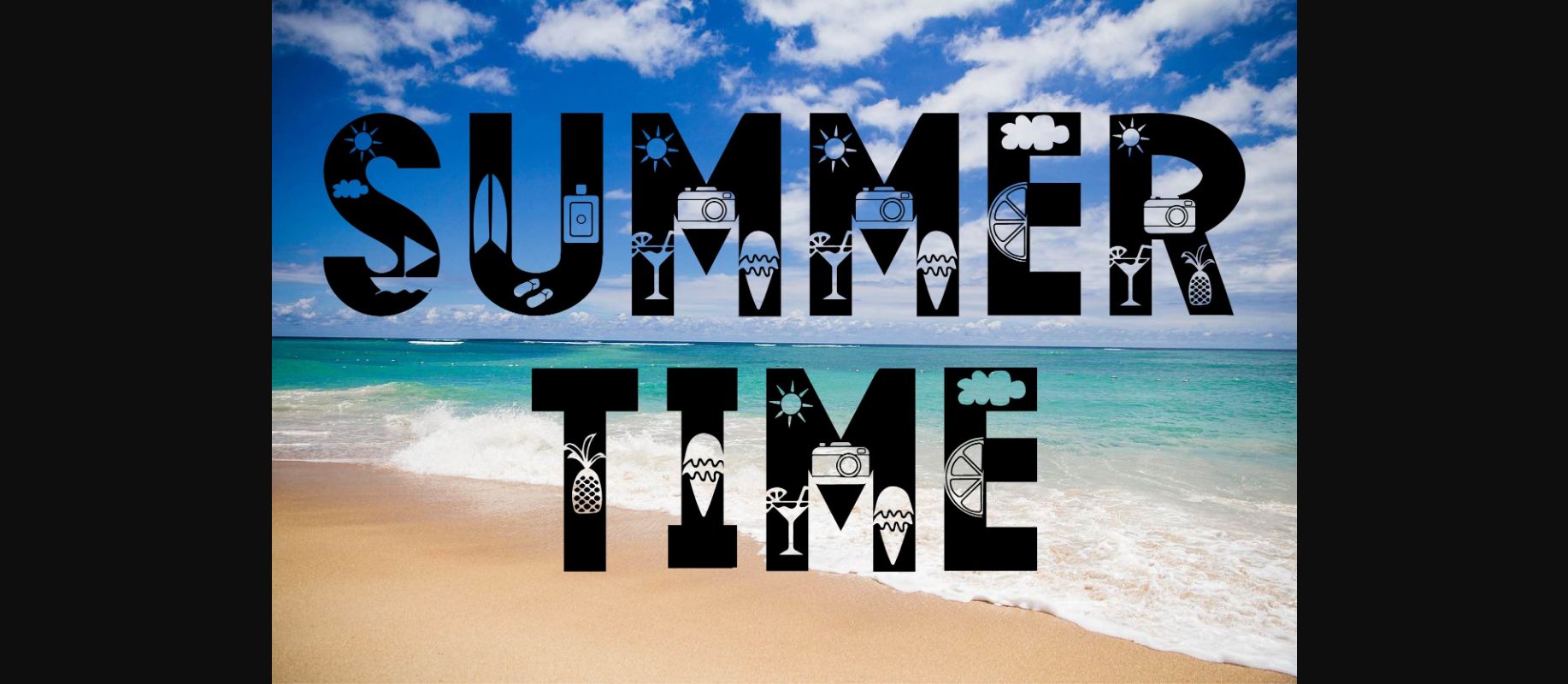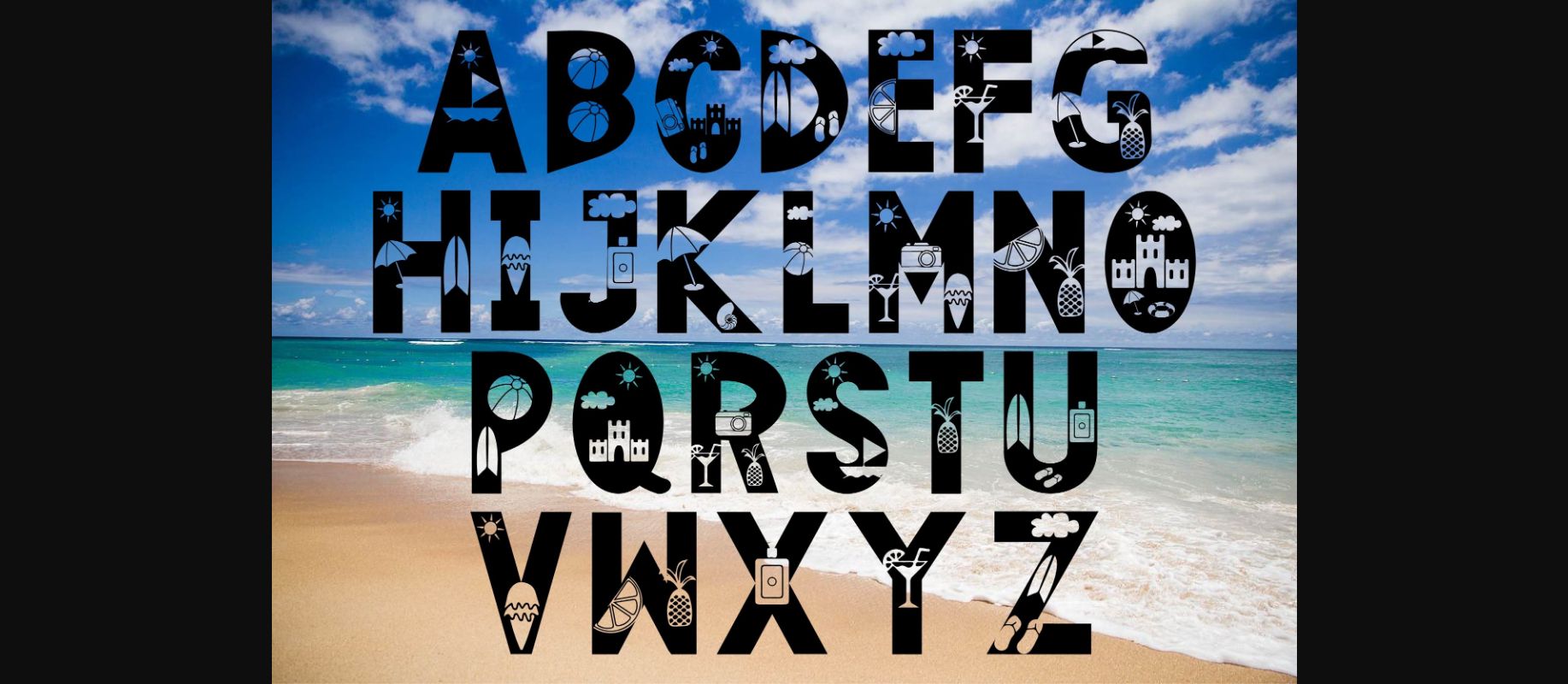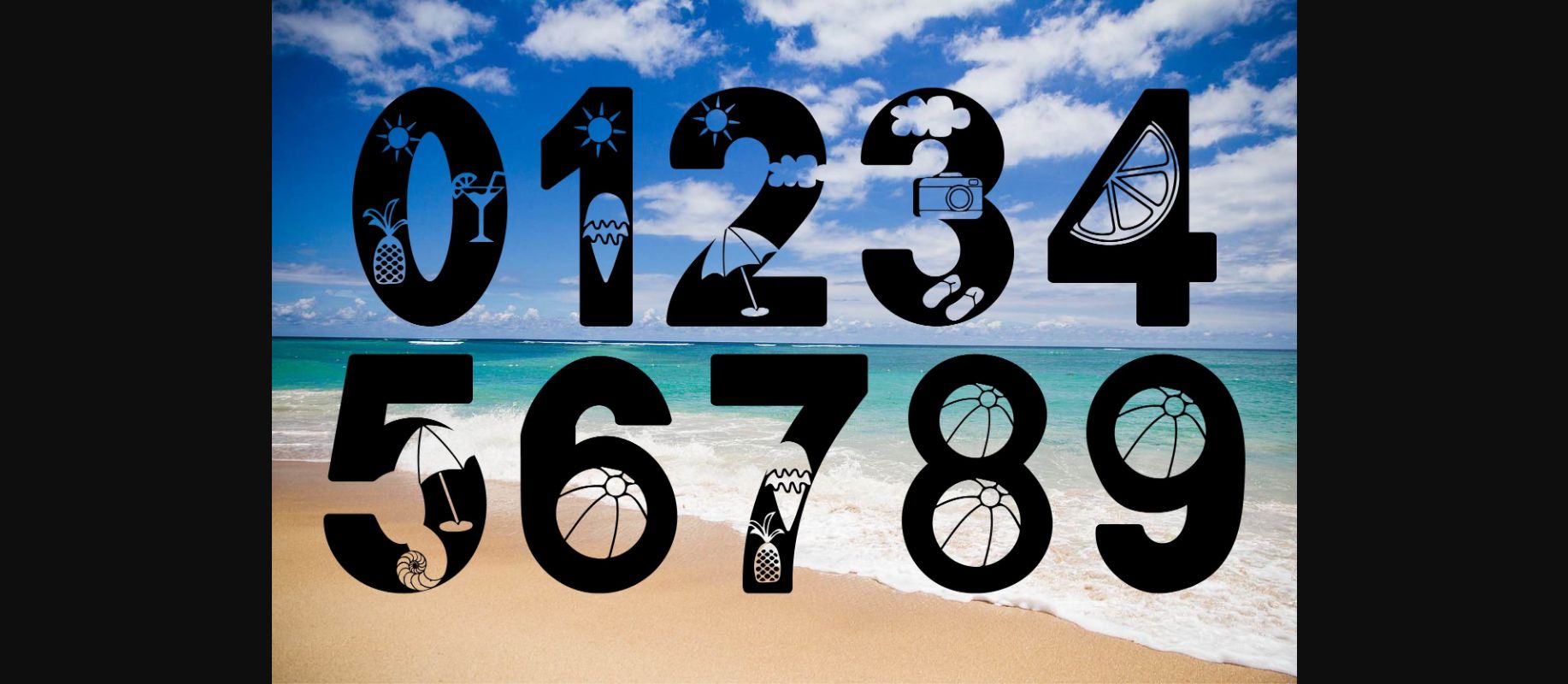
Summer Time Font
About Summer Time Font
Summer Time is a cool and original looking decorative font. It is suitable for logotype, headline font, in corporate identity, brand identity, apparel industry, poster, music, movie, game, magazine, book, comic, cartoon, YouTube, Instagram, website, or any of your creative design projects.